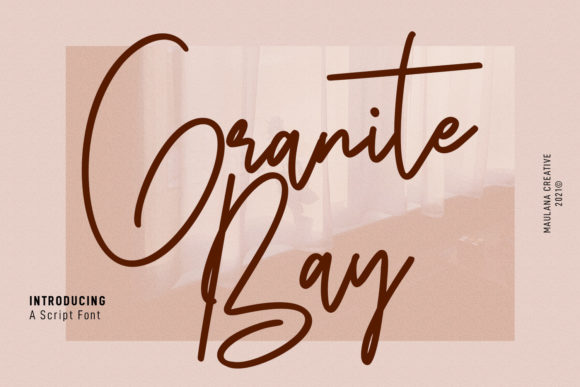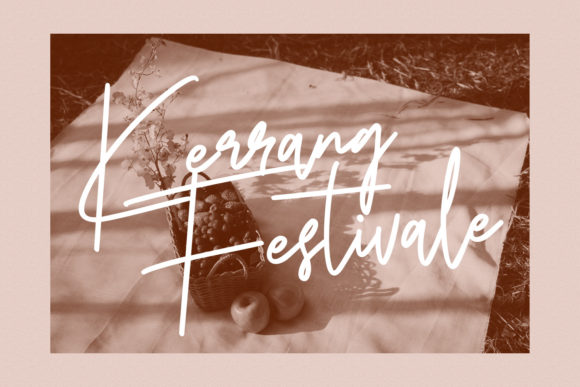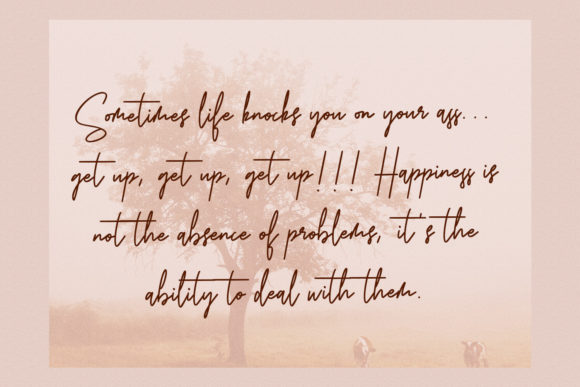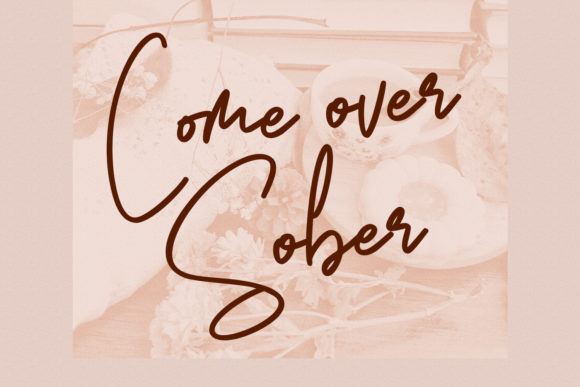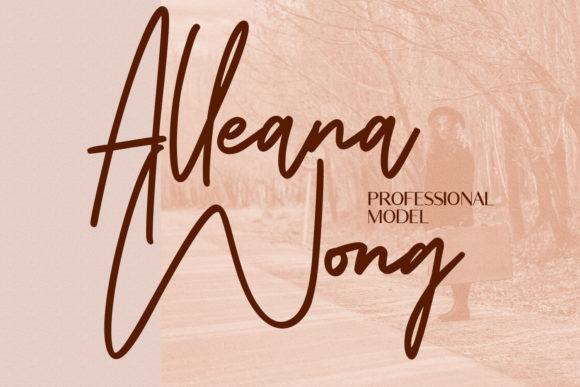
About Granite Bay Script Font
Granite Bay Script is a lovely and timeless handwritten font. It is the best choice for creating eye catching logos, branding and quotes. Every letter has a unique and beautiful touch, which will make your design come alive!